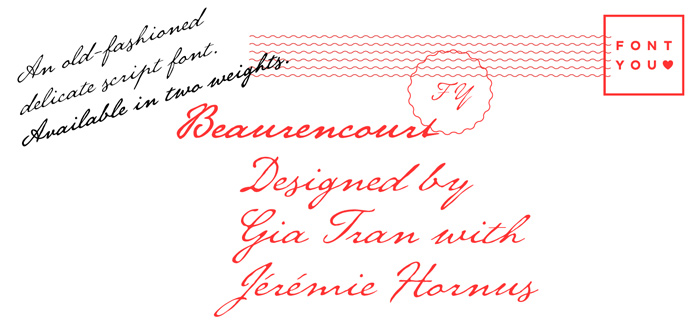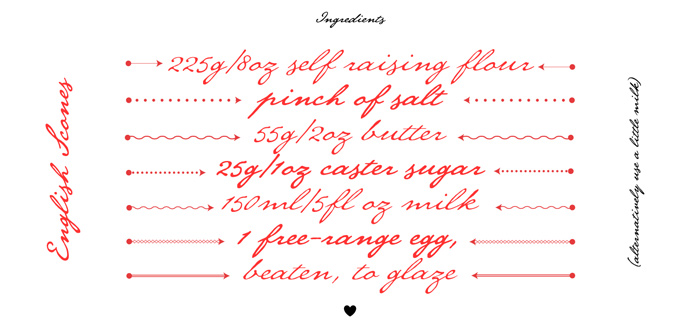
Beaurencourt FY font
Beaurencourt FY font is an elegant script font designed by Fontyou. It’s origins are in the handwriting of 19th Century where actually the inspiration came from. Beaurencourt FY has very well balanced rhythm and excellent flow from one character to another. Another great feature by Fontyou is keeping its original authentic look – glyphs are not refined, they keep some artifacts and defects that come naturally when you write with ink on paper. Beaurencourt FY font is available in two weights and is your best choice for greeting cards, packages and artworks that stand out for their individuality and authenticity.
Designers: Gia Tran, Jérémie Hornus
Publisher: Fontyou